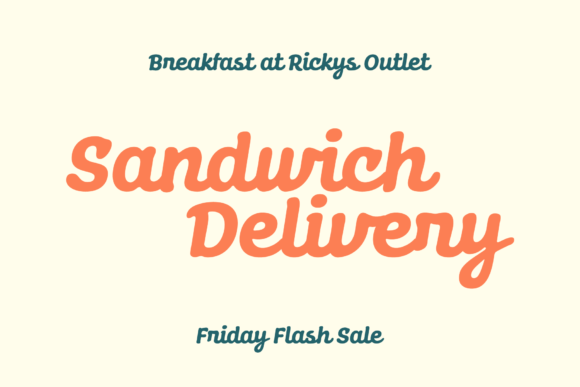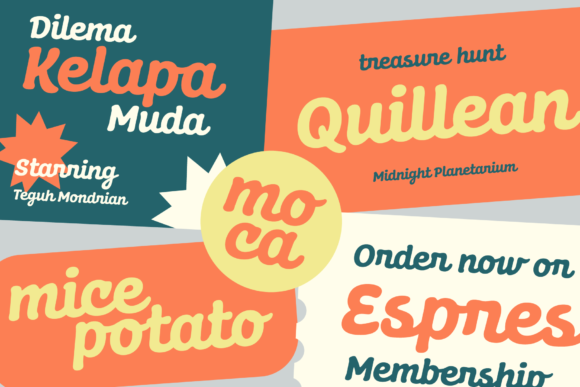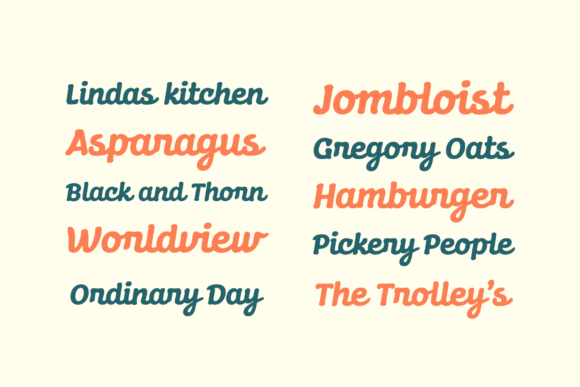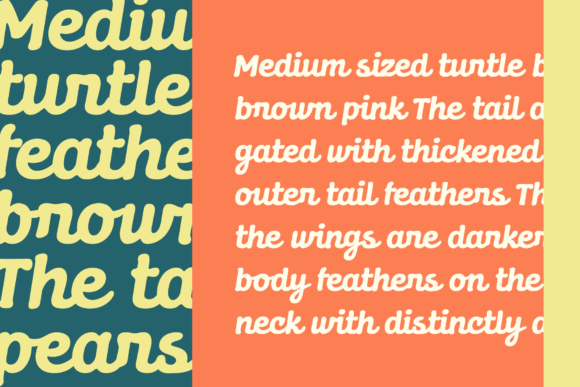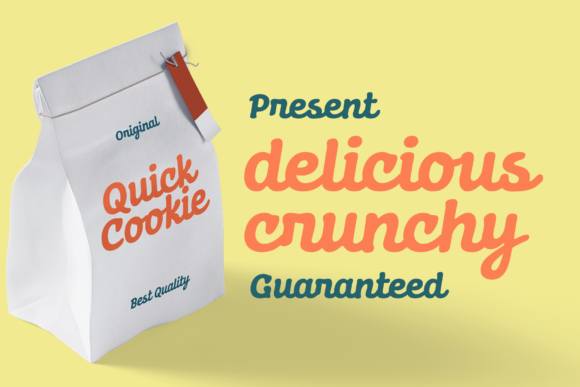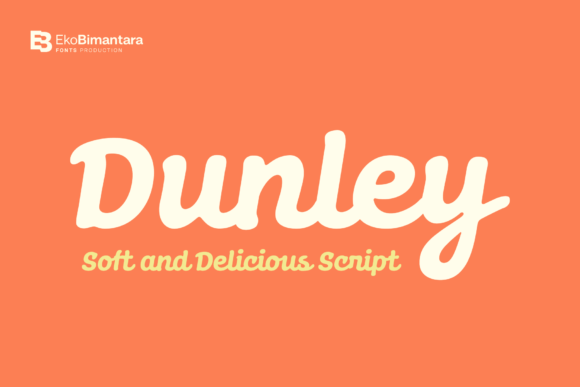
Dunley Font: A Sweet and Versatile Script for Designers and Crafters
Are you looking for a font that can add a personal touch to your designs, crafts, and digital projects? Look no further than the Dunley Font, a sweet and thick lettered paint brush script that’s perfect for a variety of creative applications. In this article, we’ll explore the features and benefits of the Dunley Font, and show you how to make the most of this versatile and charming script.
What is Dunley Font?
Dunley Font is a beautiful, hand-painted script font that’s designed to mimic the look and feel of traditional paint brush lettering. With its thick, bold strokes and sweet, cursive flair, Dunley Font is the perfect choice for designers, crafters, and DIY enthusiasts who want to add a personal touch to their projects. Whether you’re creating greeting cards, crafting signs and banners, or designing digital graphics, Dunley Font is sure to impress.
Key Features of Dunley Font
• Sweet and Thick Lettering: Dunley Font features thick, bold strokes that give it a sturdy and playful feel. The letters are sweet and cursive, making it perfect for projects that require a personal touch.
• Paint Brush Script: The font is designed to mimic the look and feel of traditional paint brush lettering, giving it a unique and hand-crafted feel.
• Versatile: Dunley Font can be used for a wide range of creative applications, from crafting and digital designing to presentations and greeting cards making.
• Easily Readable: Despite its bold and playful feel, Dunley Font is easily readable, making it perfect for projects that require a clear and legible text.
Uses of Dunley Font
Dunley Font is a versatile script that can be used for a wide range of creative applications. Here are some ideas to get you started:
• Crafting: Use Dunley Font to add a personal touch to your crafting projects, such as scrapbooking, card making, and DIY signs.
• Digital Designing: Dunley Font is perfect for digital designers who want to add a hand-crafted feel to their graphics, logos, and branding materials.
• Presentations: Add a touch of personality to your presentations with Dunley Font, perfect for titles, headings, and emphasis text.
• Greeting Cards Making: Use Dunley Font to create beautiful and personalized greeting cards for special occasions.
Tips for Using Dunley Font
Here are some tips for making the most of Dunley Font:
• Use it for Headings and Titles: Dunley Font is perfect for headings and titles, where its bold and playful feel can make a big impact.
• Mix it with Other Fonts: Combine Dunley Font with other fonts to create a unique and interesting contrast.
• Experiment with Colors: Dunley Font looks great in a variety of colors, so don’t be afraid to experiment and find the perfect hue for your project.
• Pay Attention to Size: Make sure to adjust the size of Dunley Font according to the context in which it’s being used. A larger size can make a big impact, while a smaller size can be used for emphasis text.
Dunley Font is a sweet and versatile script that’s perfect for designers, crafters, and DIY enthusiasts who want to add a personal touch to their projects. With its thick, bold strokes and sweet, cursive flair, Dunley Font is sure to impress. Whether you’re creating greeting cards, crafting signs and banners, or designing digital graphics, Dunley Font is a great choice. So why not give it a try and see how it can elevate your creative projects?
In conclusion, Dunley Font is a beautiful and versatile script that’s perfect for anyone looking to add a personal touch to their designs, crafts, and digital projects. Its unique and hand-crafted feel makes it a great choice for a wide range of creative applications. So go ahead, get creative, and make the most of Dunley Font!